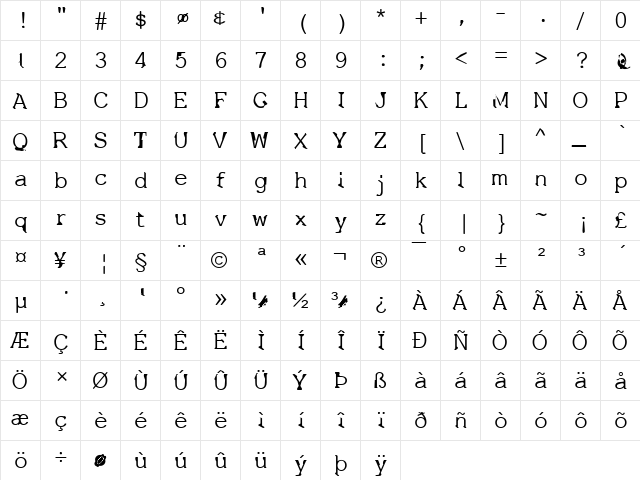
Dissatisfaction Regular
Design Context for Dissatisfaction Typeface
Dissatisfaction takes a measured approach to typography — its balanced proportions and neutral character make it a reliable workhorse for both digital and print work.